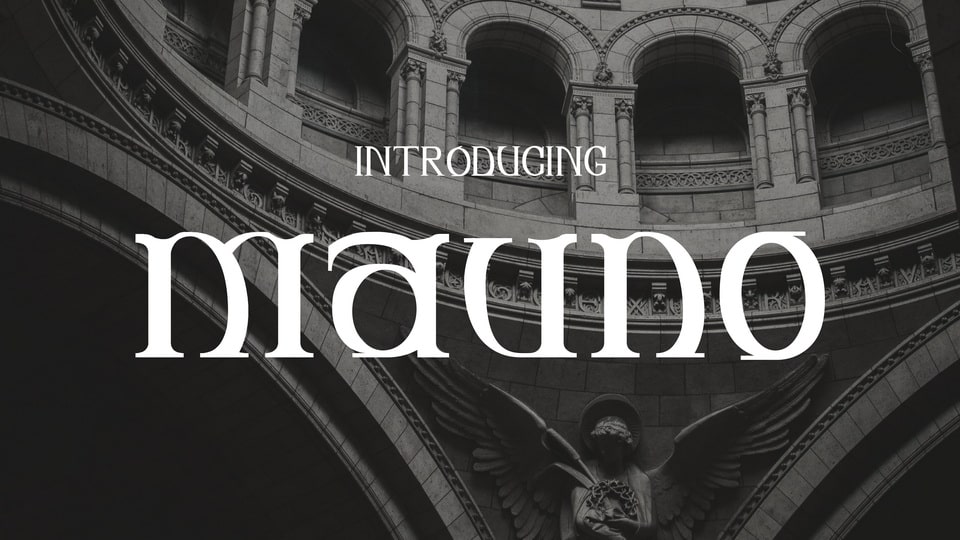
Download Mauno font, a display typeface with decorative serifs inspired by gothic abatement and is created to have a strong base with a spike top like those buildings.
Designer: Hugo Kuder